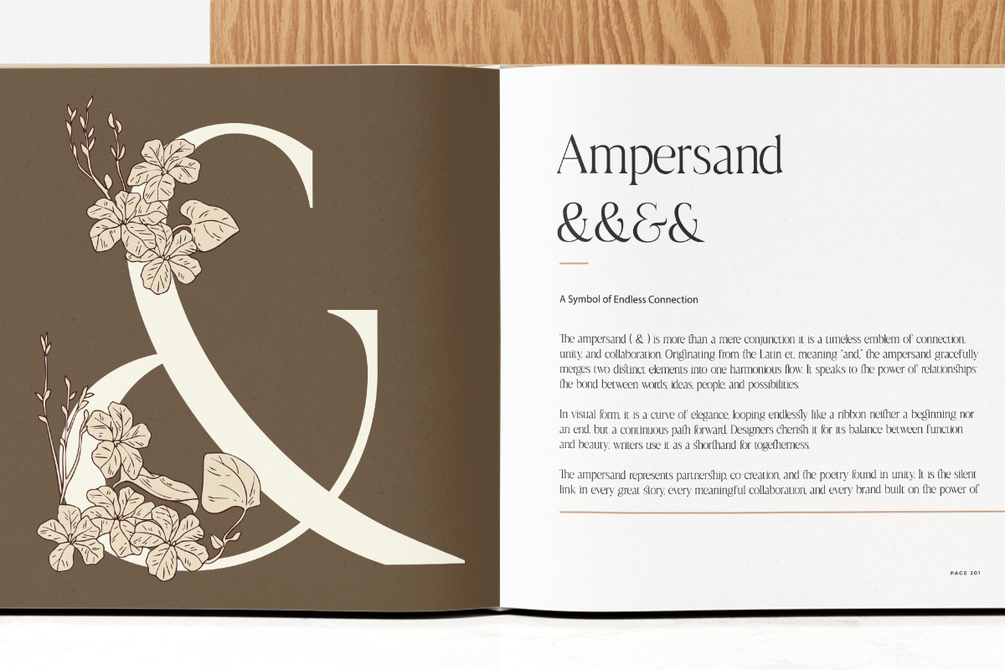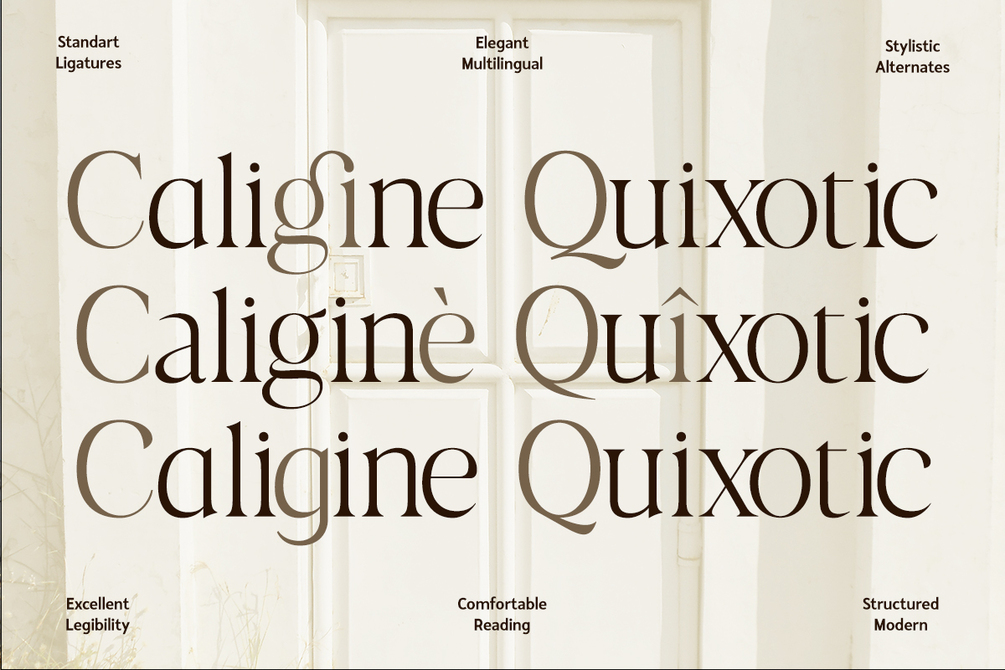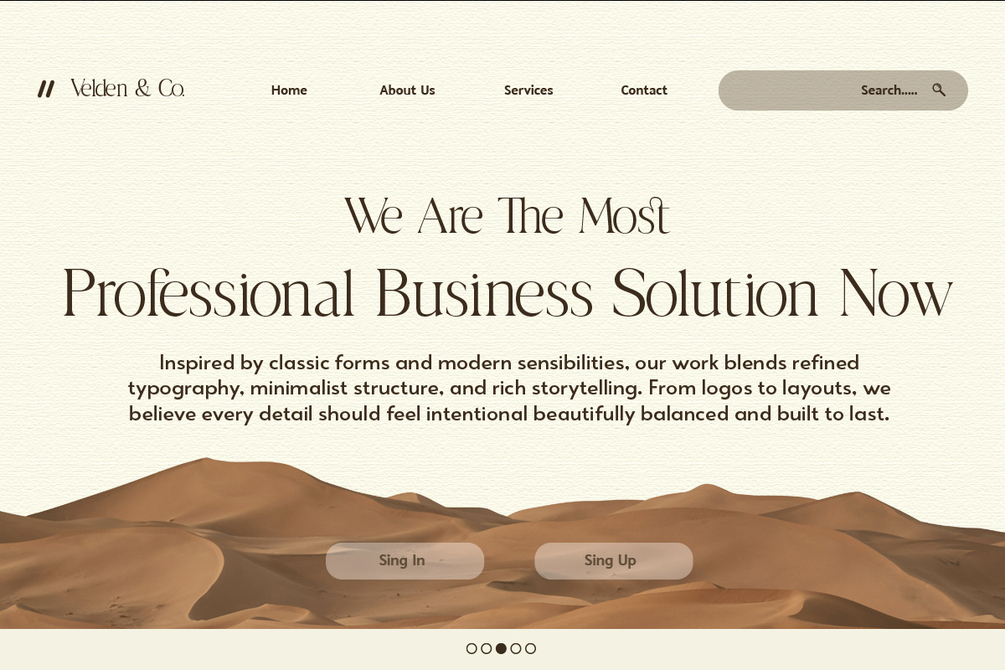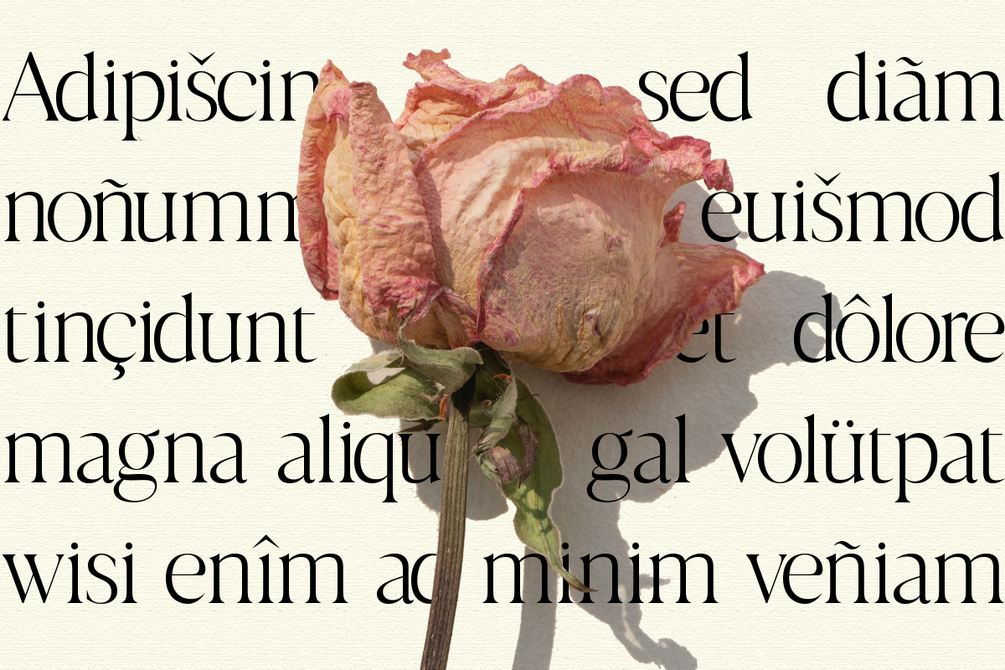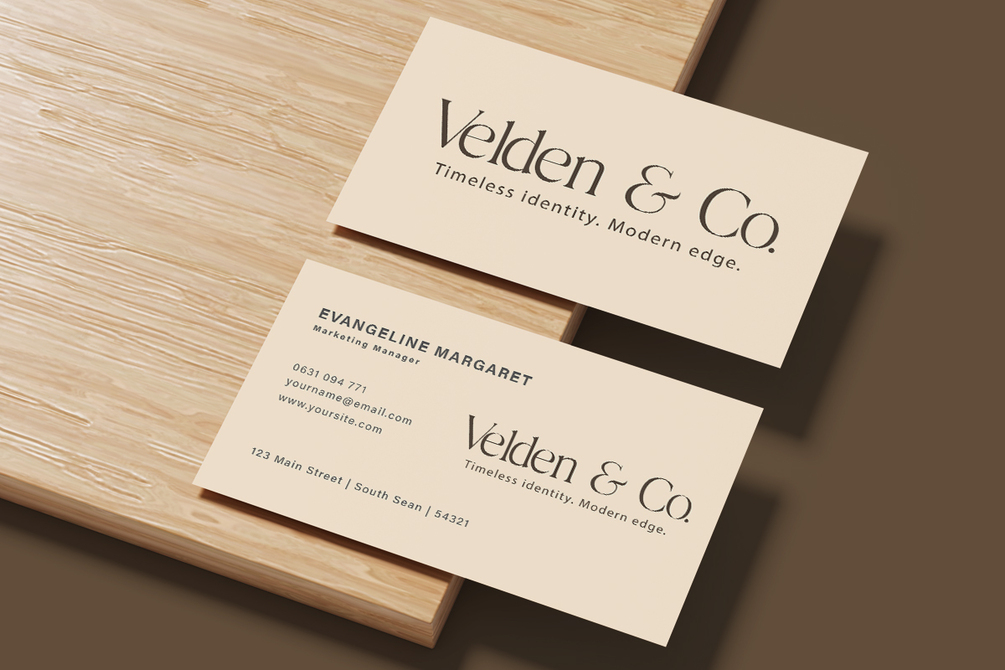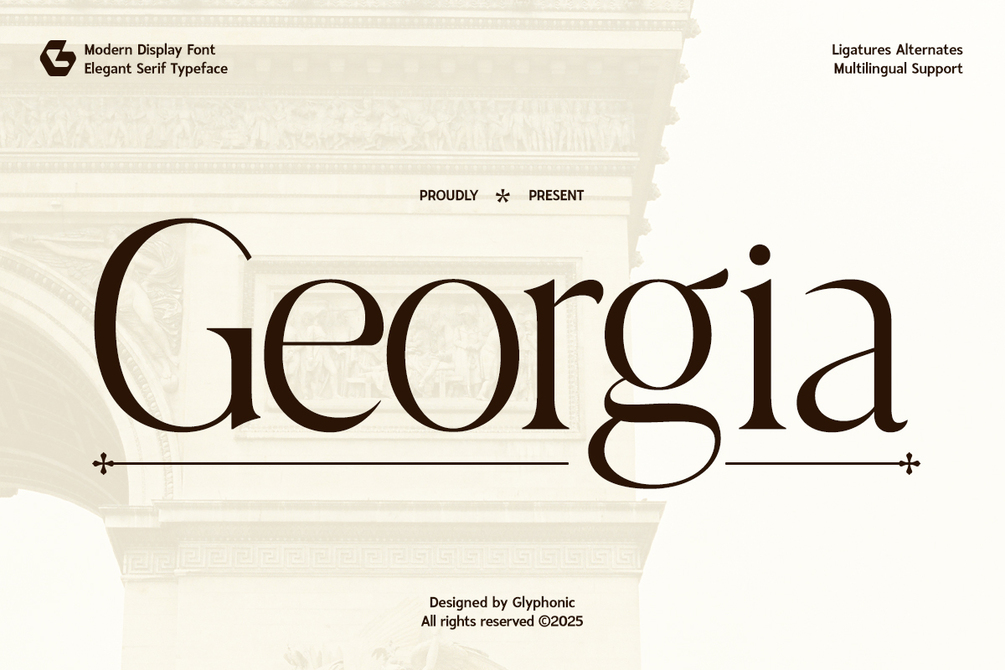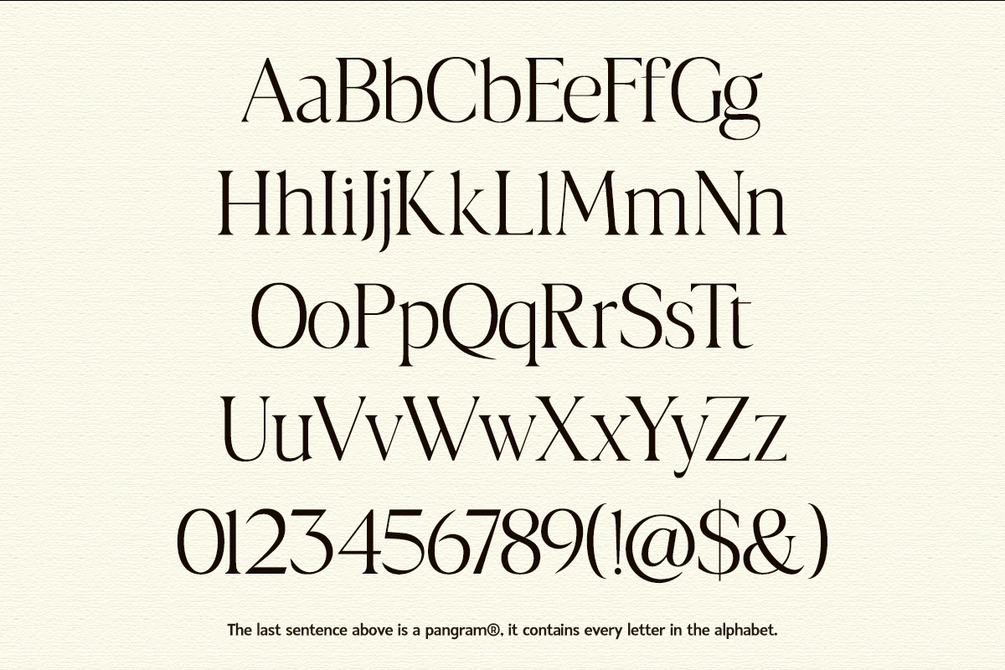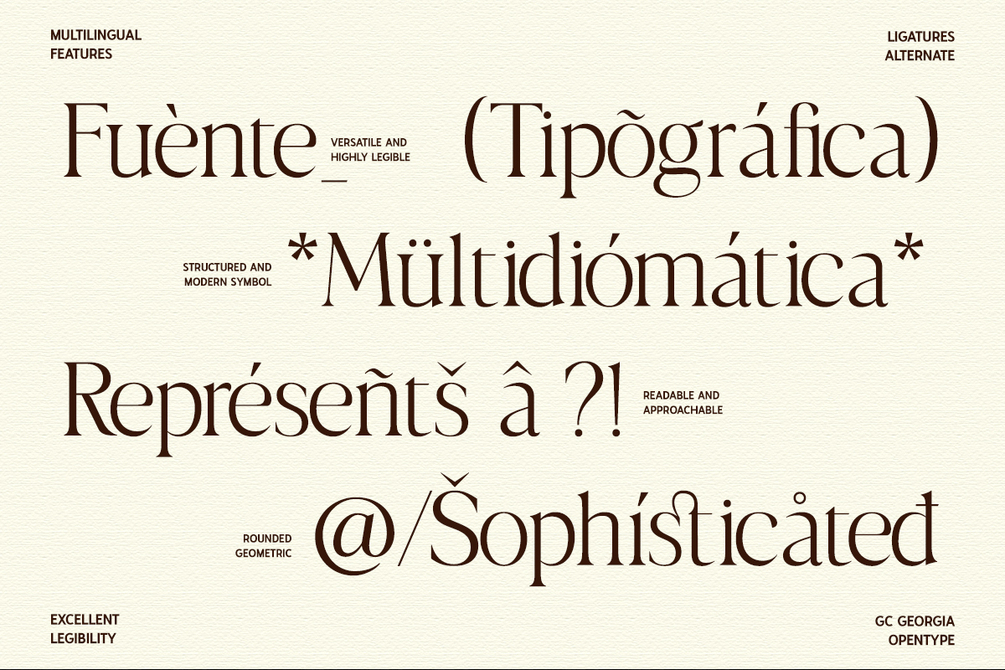
GC Georgia - Classy Serif Font
Georgia is an Elegant Serif Typeface that blends classic charm with a modern flair.
Perfect for headlines, branding, logos, packaging, and editorial design, it’s crafted to create a lasting impression with refined elegance.
With its sharp serifs, high contrast strokes, and graceful proportions, Georgia brings sophistication and character to any creative project.
Whether you’re designing for fashion, lifestyle, or artistic visuals, this typeface offers versatility, personality, and timeless beauty.
- Uppercase & Lowercase
- Stylistic Alternates
- Discretionary Ligatures
- Numbers & Punctuation
- Multilingual Support
Make your design refined, expressive, and timeless with Georgia.